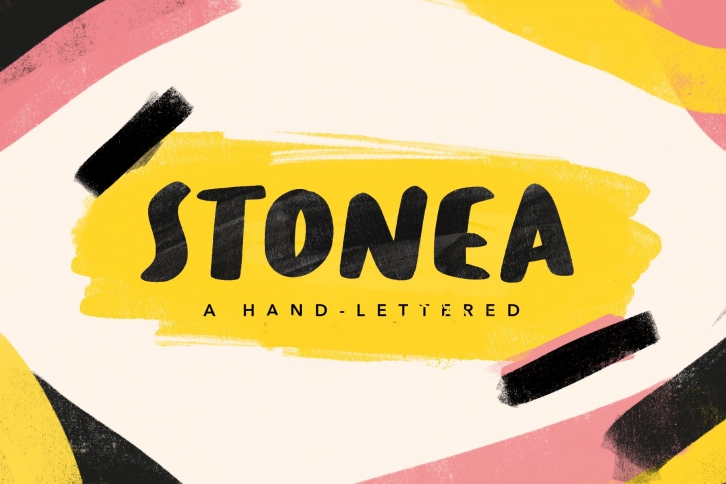
STONEA is bold lettering font, this font is suitable for hand drawn logo style, cover titles, posters, invitations, advertising, label product and other design products.